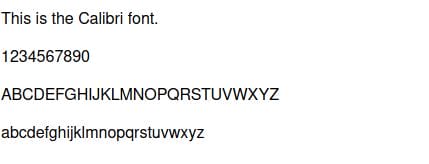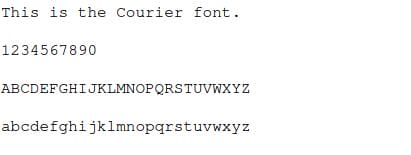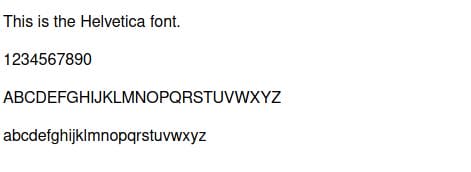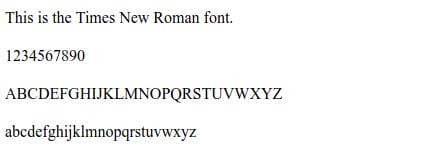
If you are a website owner then you should know that an HTML font plays an important role in your website. All websites have text content in one form or the other, if chosen correctly a good font can increase the aesthetics of your page and have a positive impact on the content readability, which is why the designing and development of a website is indeed one of the most important aspects to kickstart any business. A bad font negatively affects your suite’s performance, it all depends on if you are using a web safe font or not.
What is a Web Safe Font?
A font is readable and looks the same in any browser or device (mobile, tablet, etc.) only if the font is installed on that device. Web safe fonts are those fonts that are usually pre-installed in any device – computers, mobiles, gaming consoles, tablets, and smart TVs.
In a perfect world, you can choose any font you desire for your website. However, based on the operating system devices comes with their own pre-installed font selections. The problem lies in the fact that their designs usually differ depending on the system you use. Devices operating on windows may have one group, MacOS might have another and then Google’s Android has another different version.
When you pull up a website the font you see on the viewport may not necessarily be the font the designer intended. Meaning: let’s say the designer uses a font which is relatively obscure. If you do not have that font installed then your website would revert to the system defined generic font and you may not even know it, for you it would just look unpleasant.
Web safe fonts are a collection of fonts that are there across all systems and give you the ability as the designer to specify the font to fall back on in case the device doesn’t have the font needed. It allows you the ability to make the website look the same across a range of devices.
What are the Five Font Families?
In typography, all fonts are categorized into one of the five font families on the basis of their design similarities. These are as follows:
1. Cursive (e.g., Zapf-Chancery)
The Cursive family of fonts imitate human handwriting with the letters usually joined together in a flowing manner. It is often associated with people with calligraphy and faster writing.
2. Fantasy (e.g., Star Wars)
The fonts of the Fantasy font family generally have decorative elements in each letter but still represent the character. The titles of many fictional books and films use fonts from this family to strengthen the nuance of the content.
3. Serif (e.g., Times New Roman)
The Serif font family’s most notable feature is a small line at the end of a big stroke in a letter or symbol. It creates a sense of elegance and formality. It is extensively used for body text by a host of websites.
4. Sans-serif (e.g., Helvetica)
Unlike the fonts from the Serif family, the fonts of the Sans-serif family do not have the small line attached to every letter. Most of the fonts belonging to this family have a similar stroke width, thus making it minimalistic and modern.
5. Monospace (e.g., Courier)
In the Monospace font family, each letter and symbol occupies the exact same space horizontally. Thus making them consistent and easy to distinguish, which is why they are were often used with typewriters and more recently with computer terminals.
Now that we have an insight into the fonts, below are 5 popular web safe fonts to add to your website:
1. Arial
One of the most widely used sans-serif fonts in both online and printed media. It is the de-facto standard. The OpenType version 3.0 describes it as:
“A contemporary sans serif design, Arial contains more humanist characteristics than many of its predecessors and as such is more in tune with the mood of the last decades of the twentieth century. The overall treatment of curves is softer and fuller than in most industrial-style sans serif faces. Terminal strokes are cut on the diagonal which helps to give the face a less mechanical appearance. Arial is an extremely versatile family of typefaces which can be used with equal success for text setting in reports, presentations, magazines, etc, and for display use in newspapers, advertising and promotions.”
It is also the default font in Google docs.
2. Times New Roman
Times New Roman is a variation of the old Times font from the Serif font family. Commissioned by the British newspaper ‘The Times’ in 1931 and designed by Stanley Morison, the artistic adviser of Monotype the printing equipment company and collaborating with Victor Lardent, from the lettering department of the Time’s Advertising arm. It has emerged as one of the most popular fonts of all time and is pre-installed on most devices.
The Roman in Times New Roman’s name is a reference to the roman style, the first part of the Times New Roman font family to be designed. It has its origins in the Italian printing of the late 15th and early 16th centuries, the design has no connection to Rome or to the Romans.